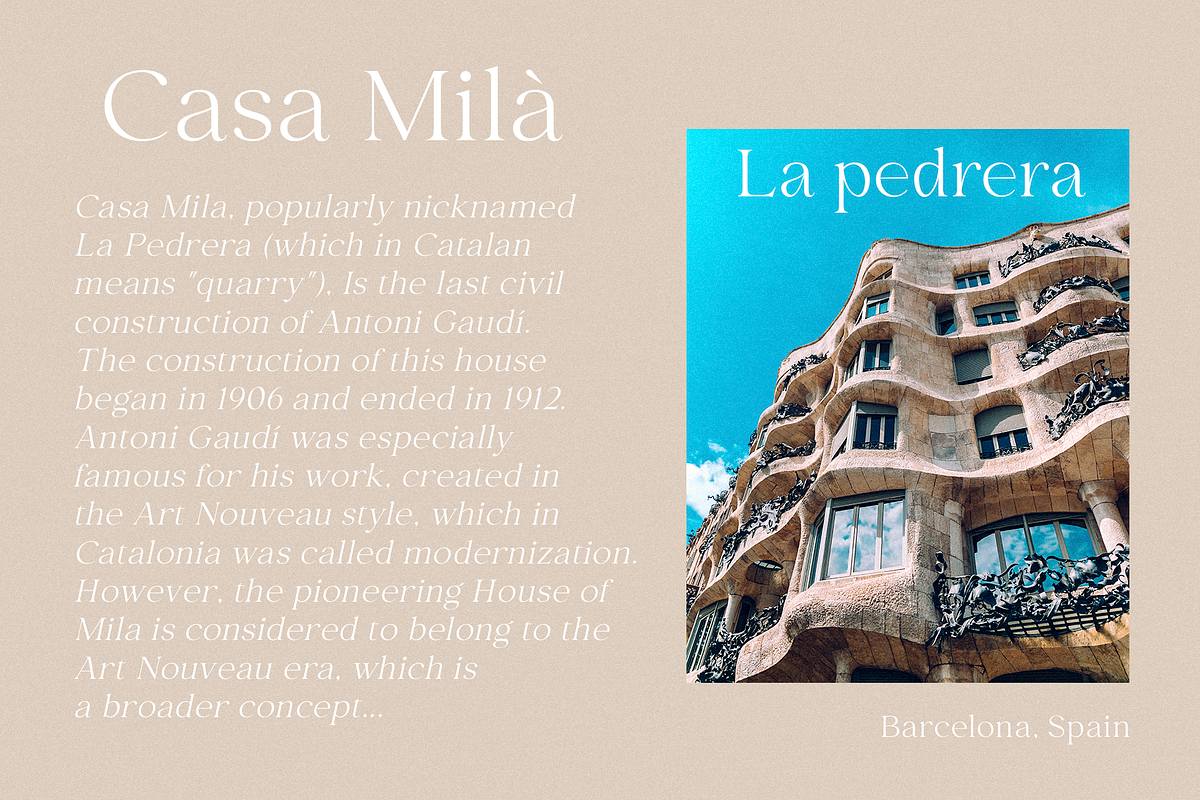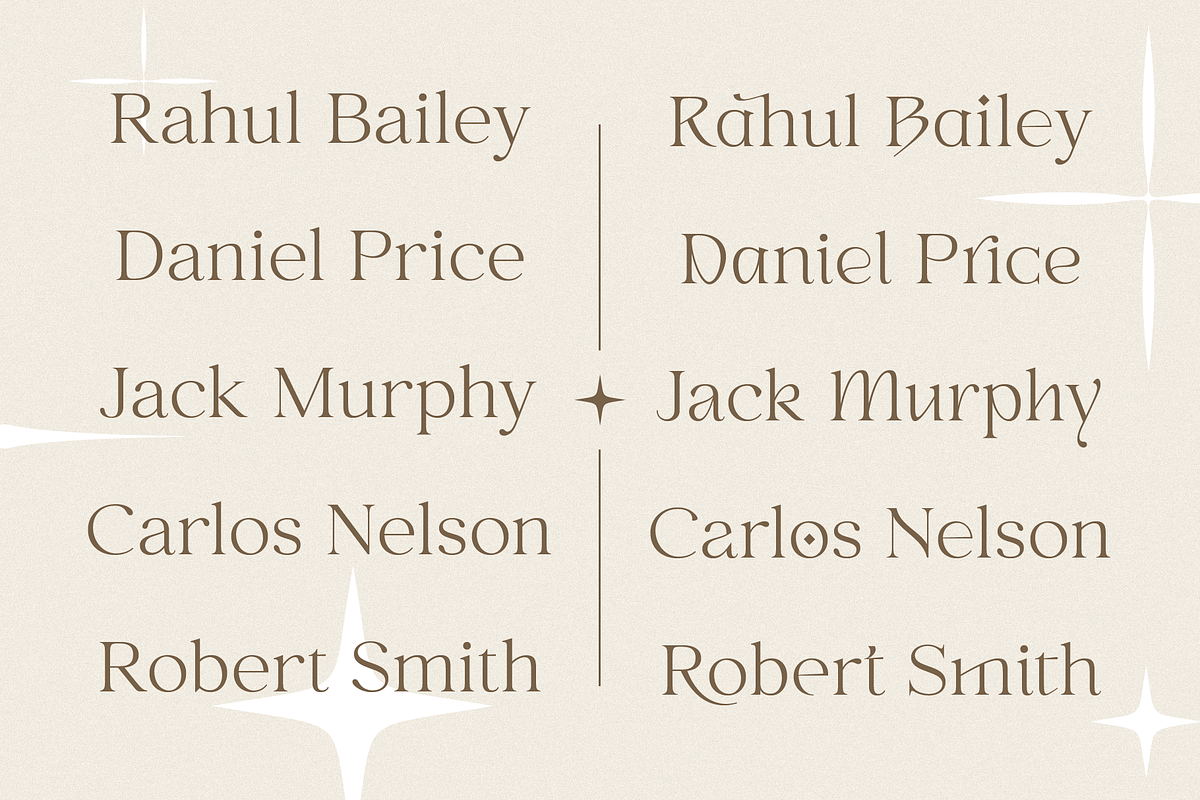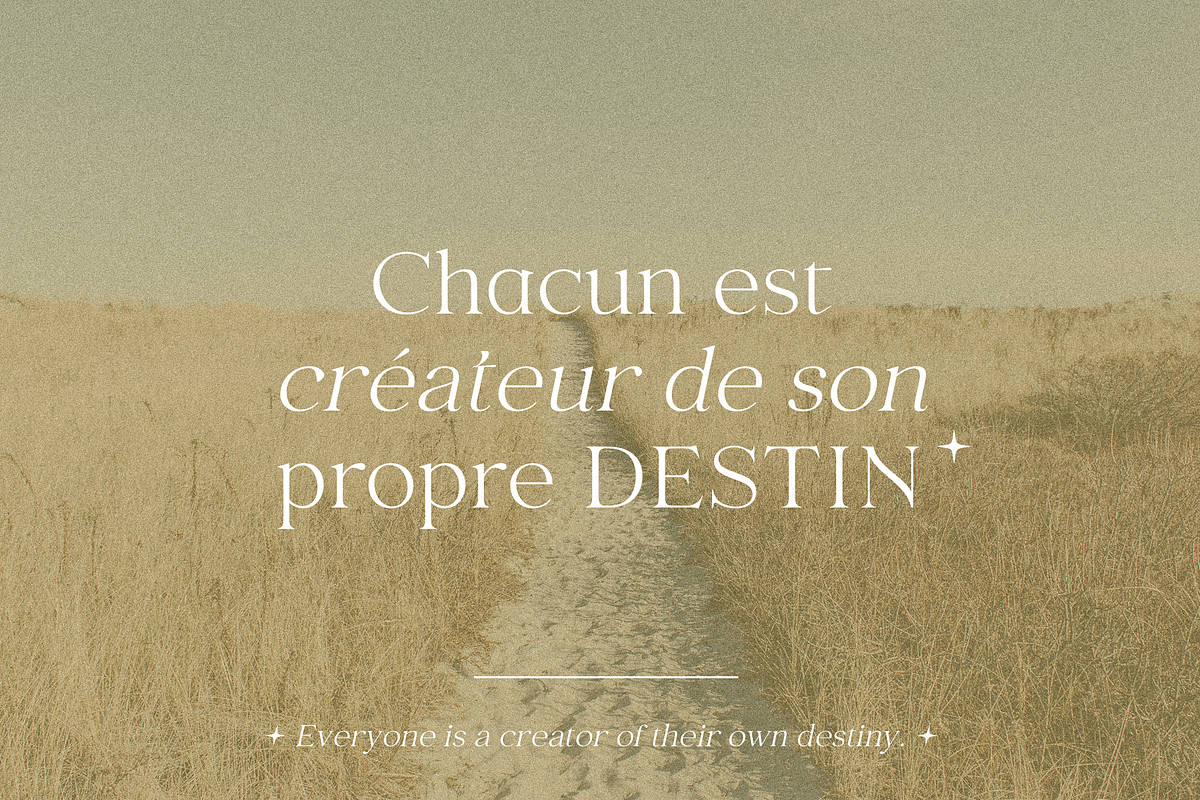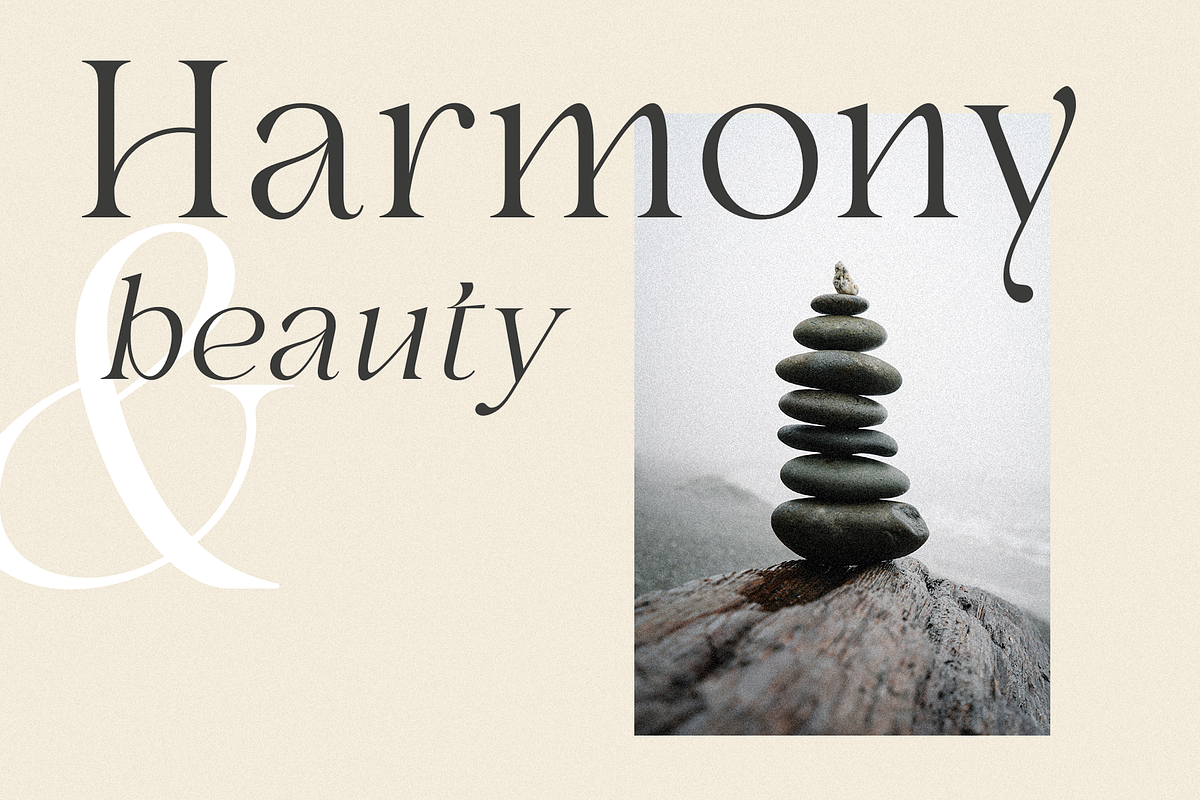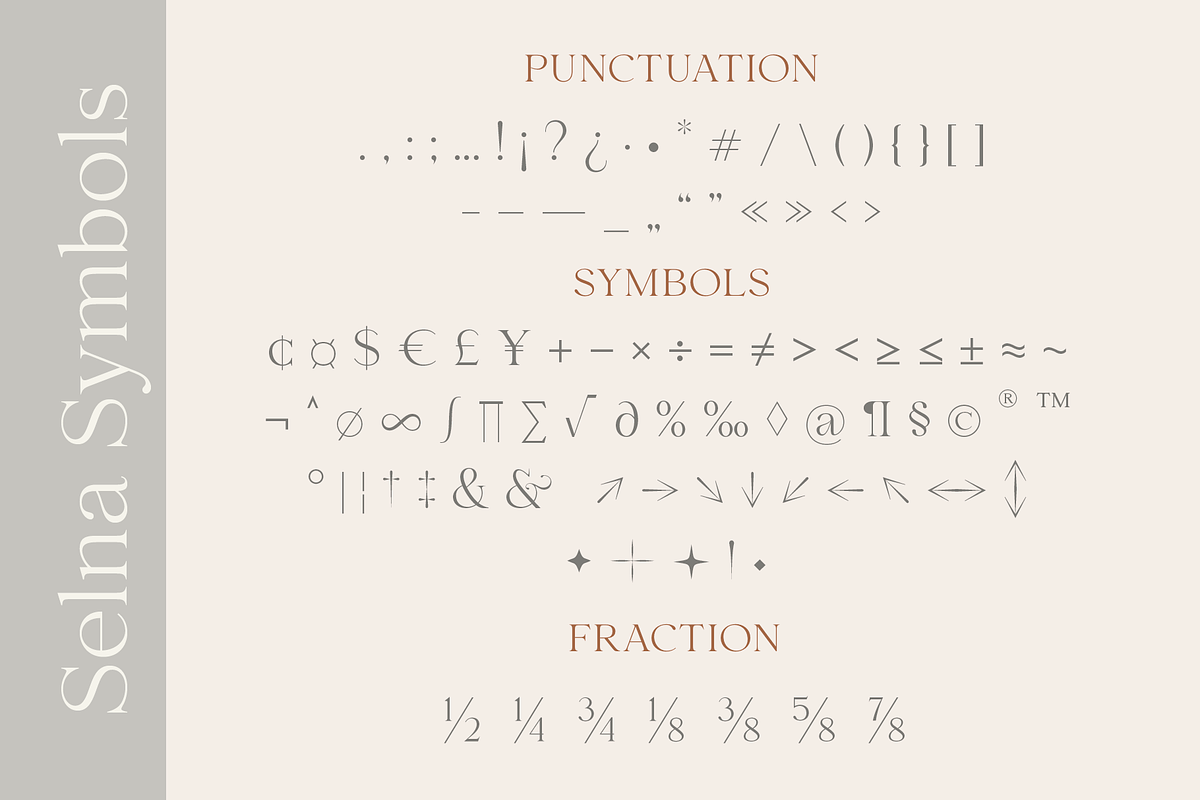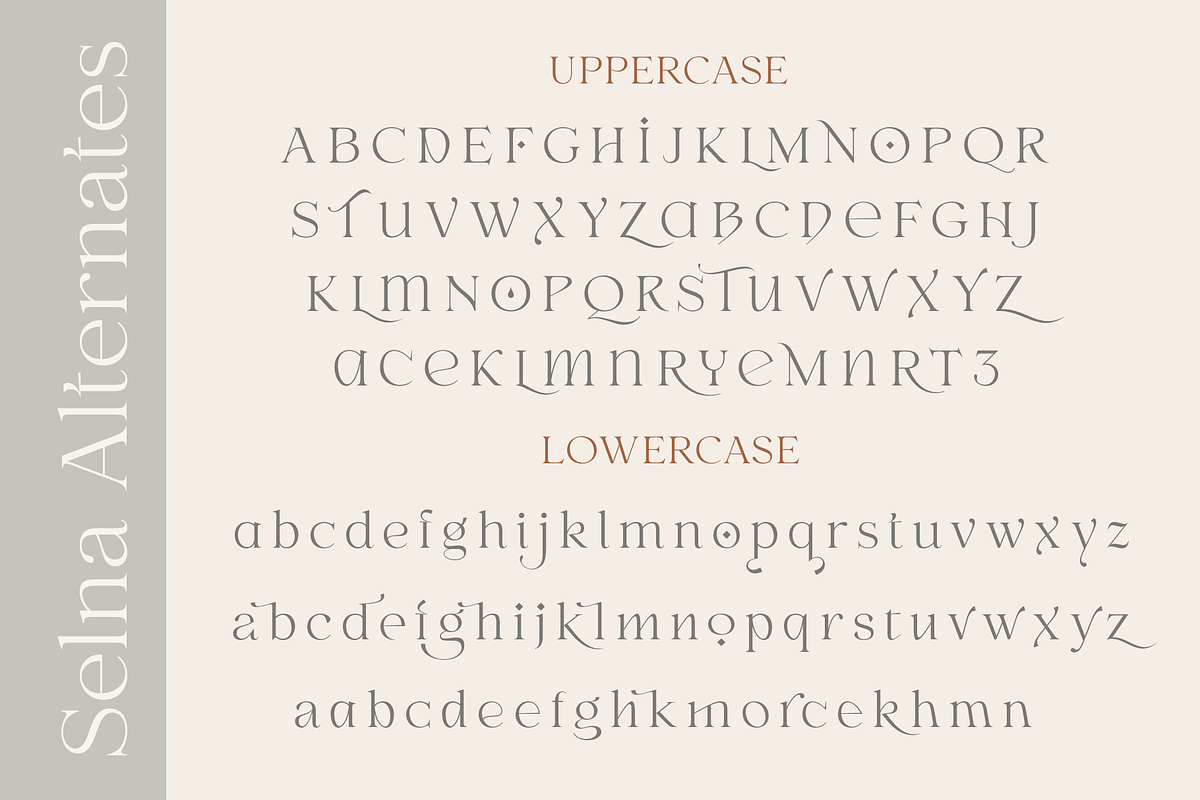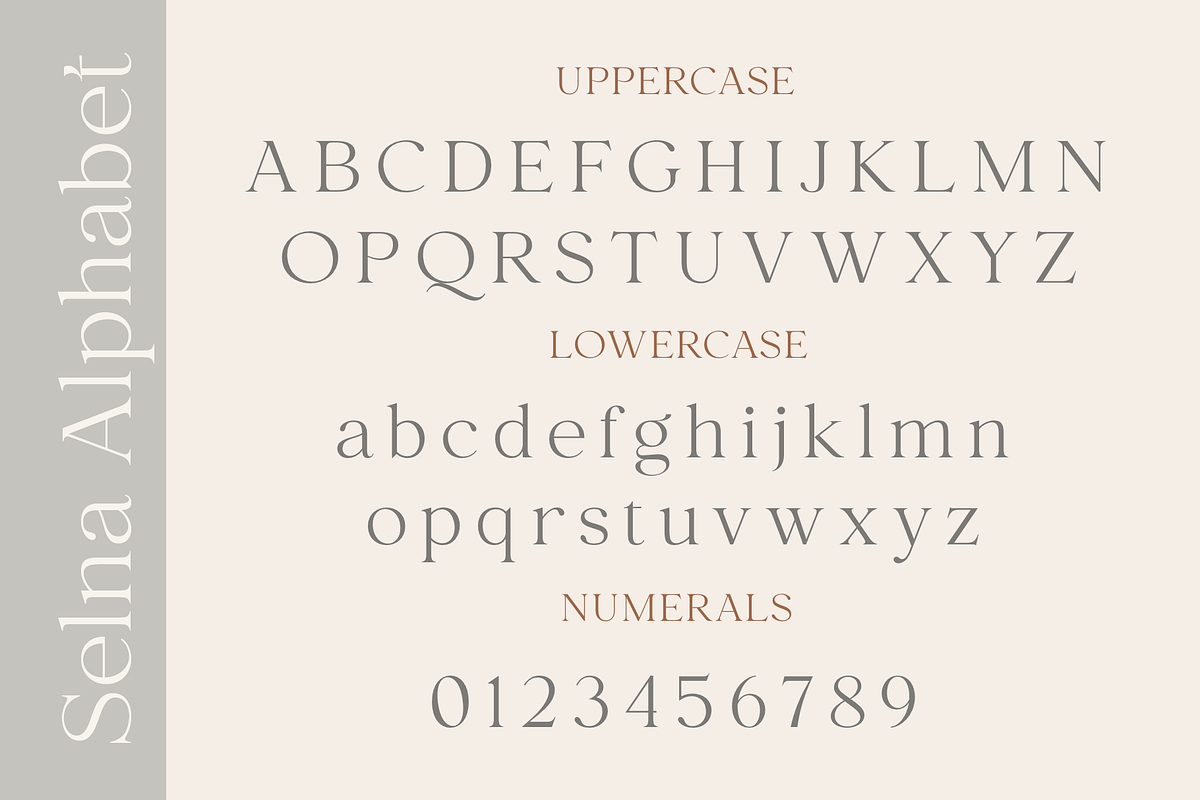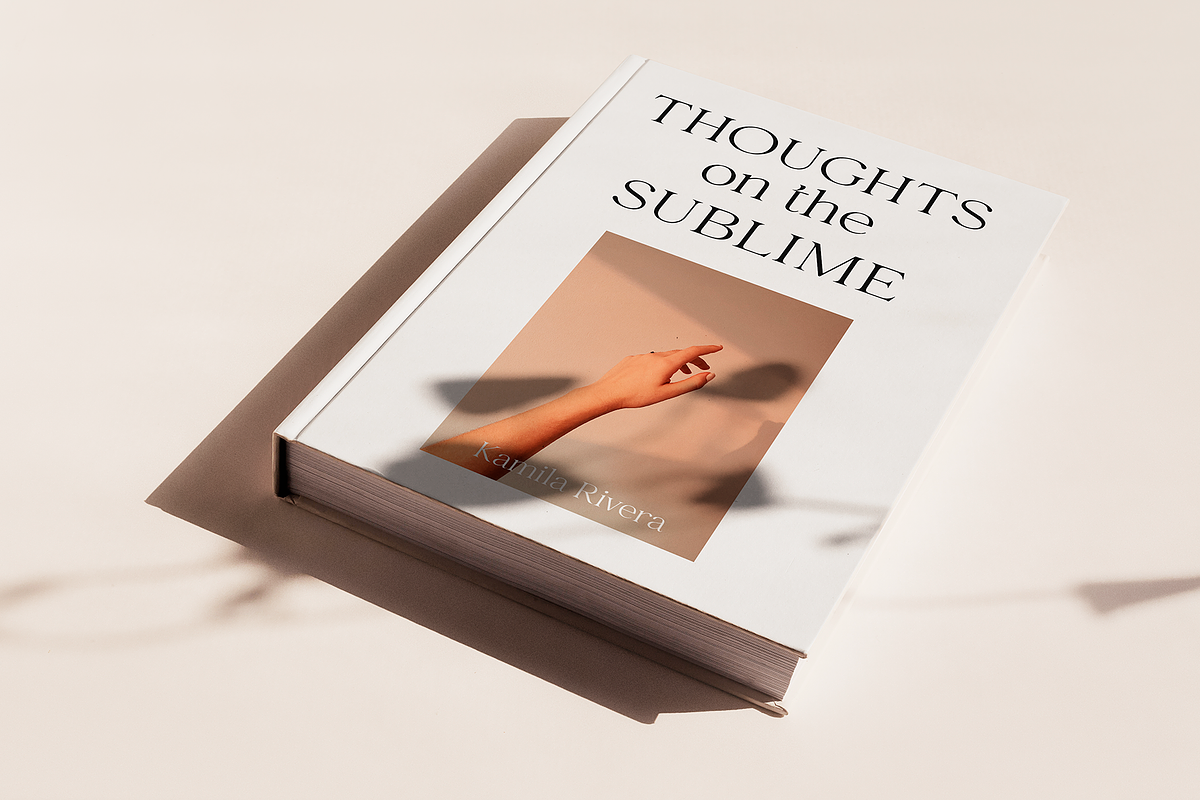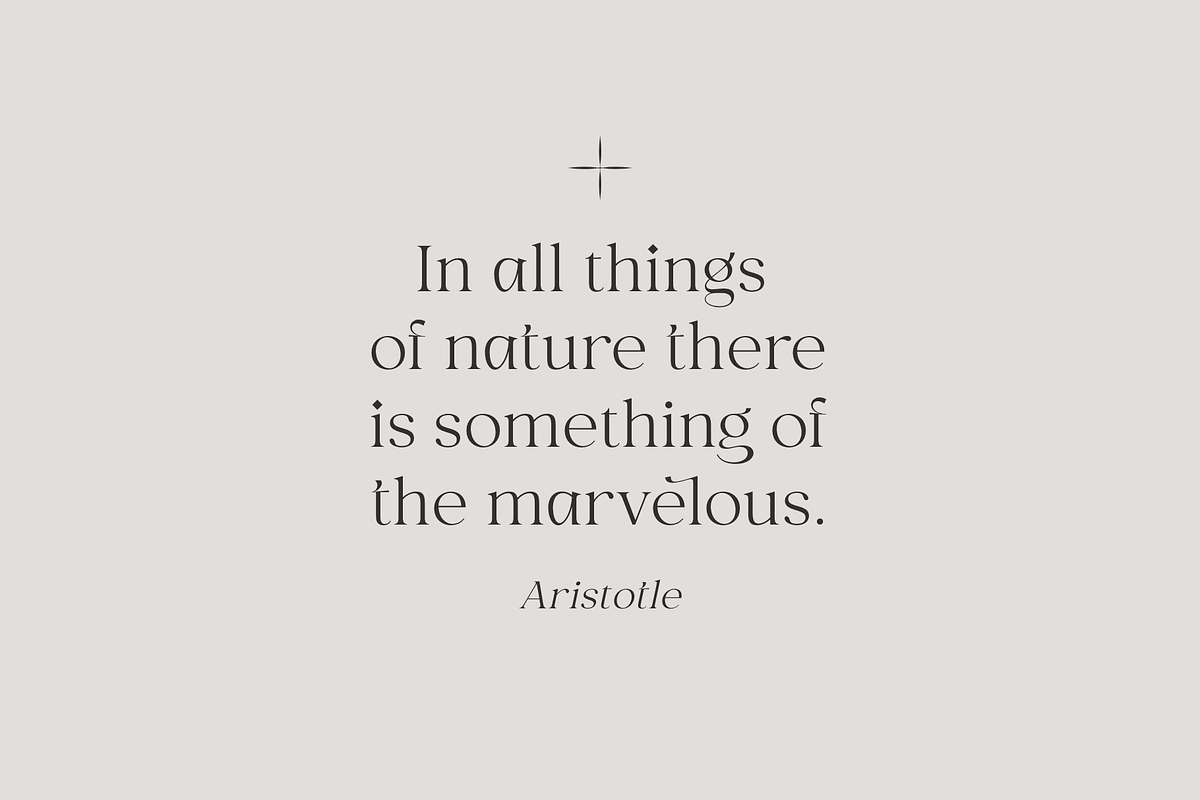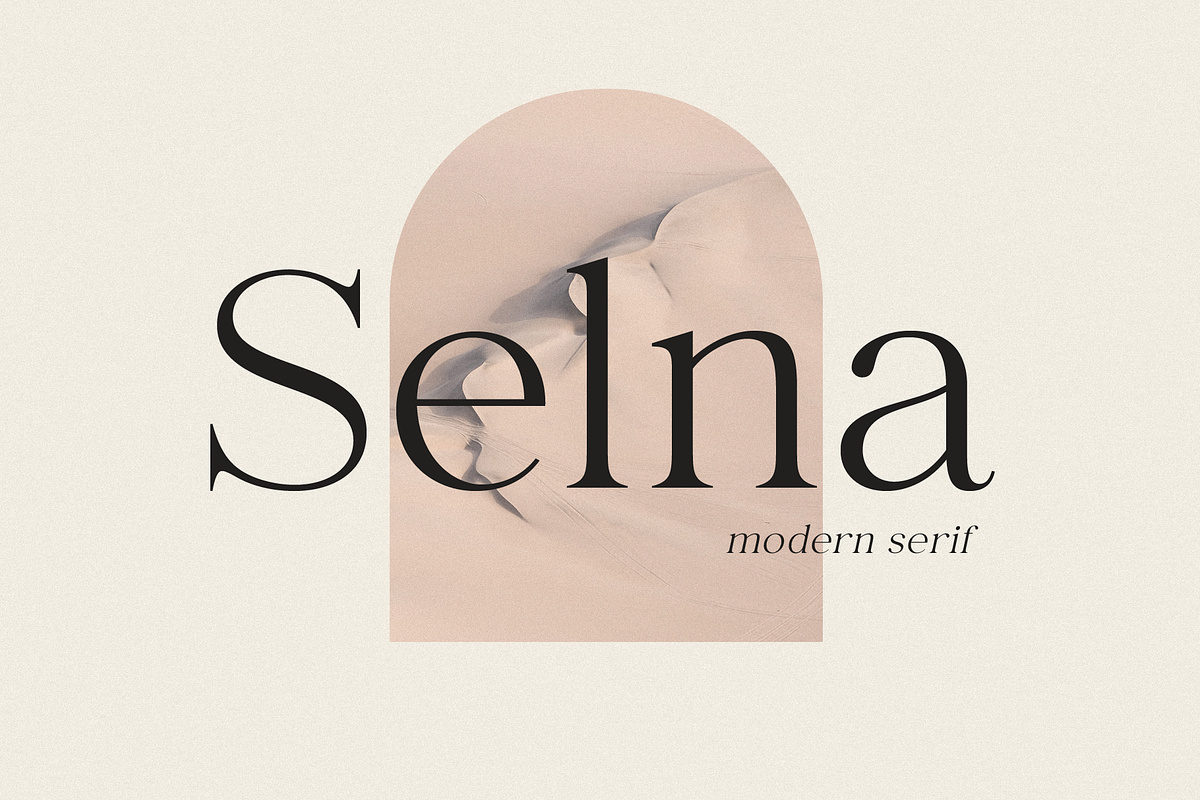
Selna
Selna is a modern, elegant serif font that includes four typefaces ( regular, outline, oblique, and outline oblique).
This font has a light weight and looks amazing in logos, branding, arranging wedding invitations, business cards, packaging, titles and much more and also works perfectly with text, it is very readable and recognizable. This font includes alternates for Uppercase and Lowercase, with them you can make your project more elegant and unique and the slanted style will add dynamics to your design. This font is easy to use has OpenType features.
Following international symbols support: ÀÁÂÃÄÅĄÇĆÈÉÊËĘÌÍÎÏÐÑŃŁÒÓÔÕÖØÙÚÛÜŚŠŸÝŹŻŽßàáâãäåçèéêëìíîïðñòóôõöøùúûüýÿąćęłńśšźżž
Full alphabet with Uppercase and Lowercase A-z
Numbers, fractions
Punctuation and symbols
Alternates for Uppercase
Alternates for Lowercase, also ampersand